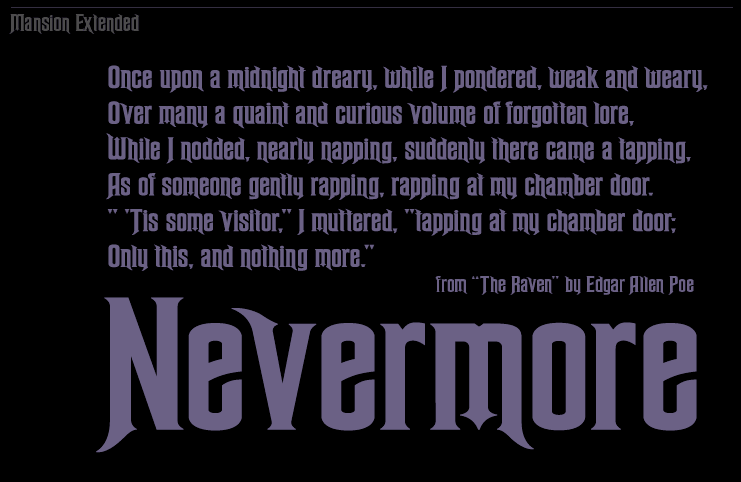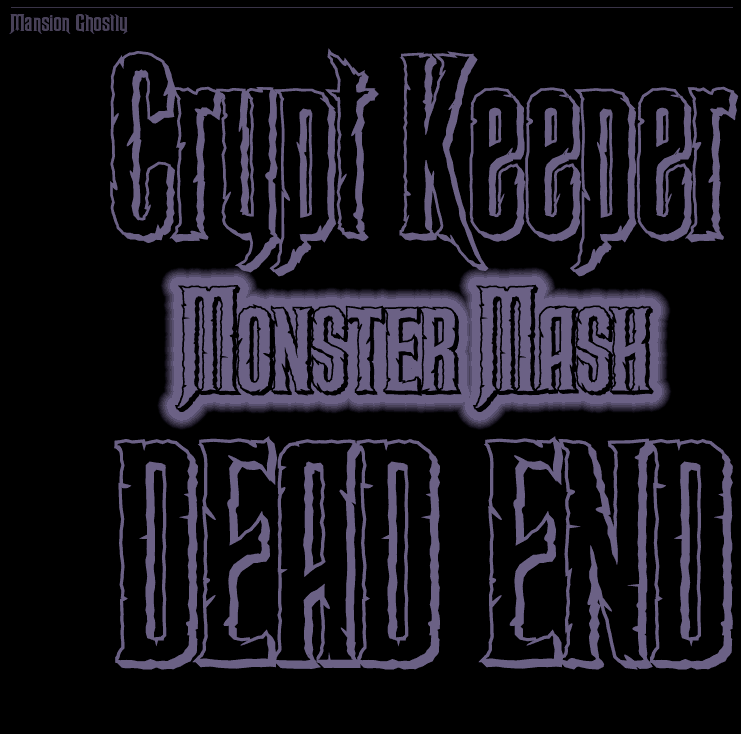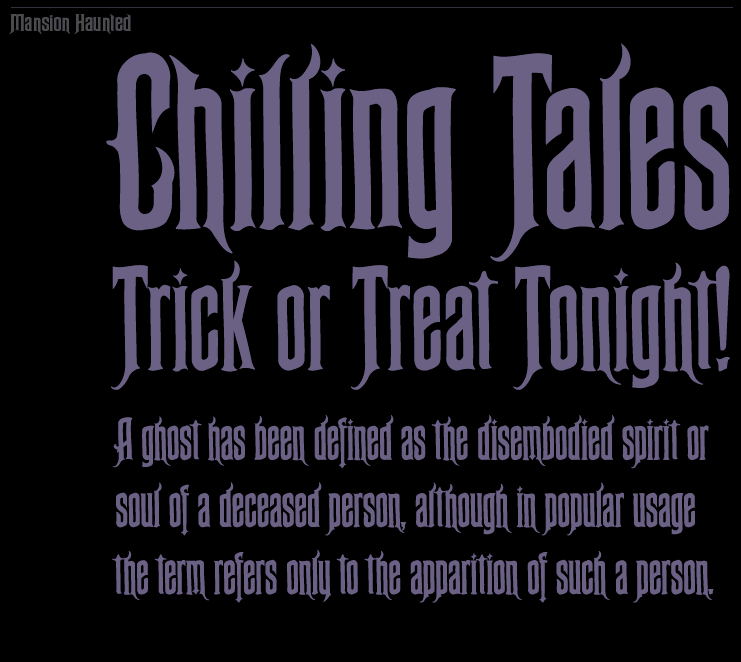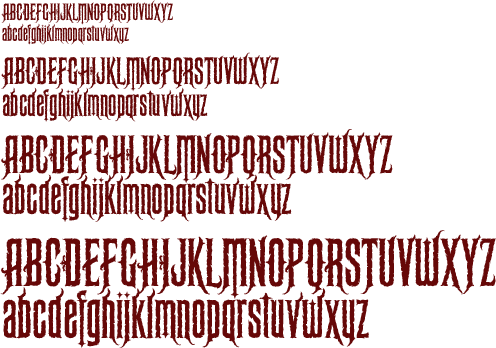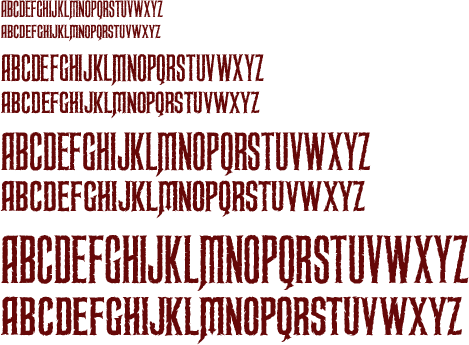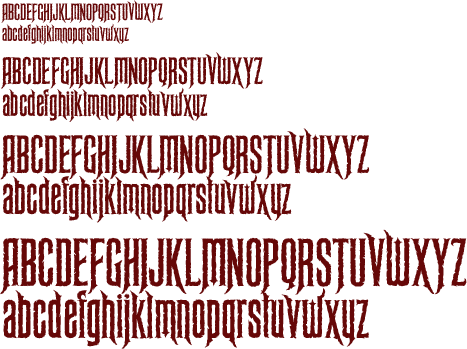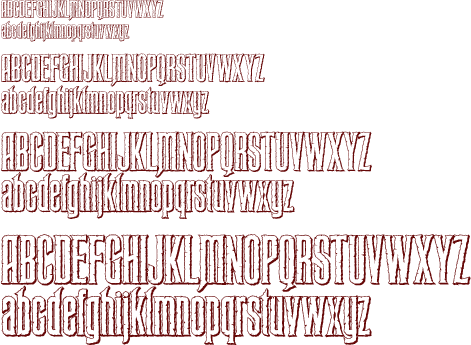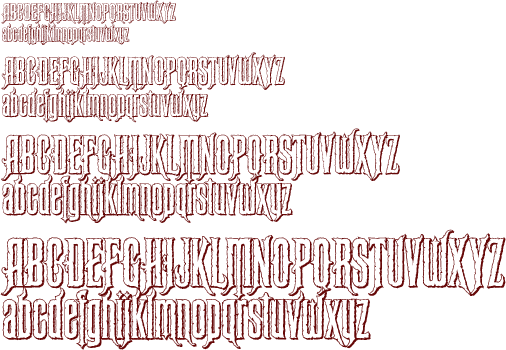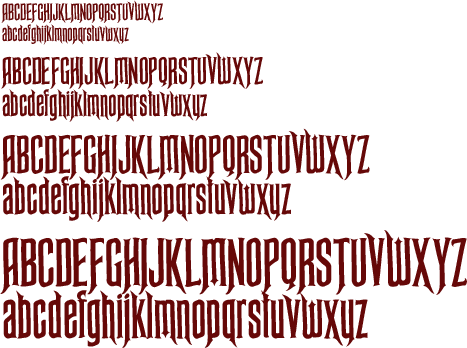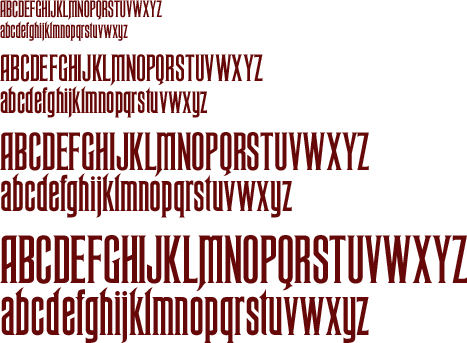
Mansion™ by David Occhino
A woodcut typeface from the 1890s, inspired by lettering by Peter Paul Rubens.
Haunted Mansion font by David Occhino Design
Character Set
Mansion has a set of 240 glyphs.
• Latin A-Z, a-z
• Complete punctuation
• International characters
• Mathematical symbols
Mansion character set
Samples
• Mansion Regular
Mansion Regular
• Mansion Regular Alternate I
Mansion Alternate I
• Mansion Regular Alternate II
Mansion Alternate II
• Mansion Regular Small Caps
Mansion Regular Small Caps
• Mansion Antique
Mansion Antique
• Mansion Antique Alternate I
Mansion Antique Alternate I
• Mansion Antique Alternate II
Mansion Antique Alternate II
• Mansion Antique Small Caps
Mansion Antique Small Caps
• Mansion Haunted
Mansion Haunted
• Mansion Haunted Alternate I
Mansion Haunted Alternate I
• Mansion Haunted Alternate II
Mansion Haunted Alternate II
• Mansion Haunted Small Caps
Mansion Haunted Small Caps
• Mansion Ghostly
Mansion Ghostly
• Mansion Ghostly Alternate I
Mansion Ghostly Alternate I
• Mansion Ghostly Alternate II
Mansion Ghostly Alternate II
• Mansion Ghostly Small Caps
Mansion Ghostly Small Caps
• Mansion Extended
Mansion Extended
• Mansion Stencil
Mansion Stencil
Additional Samples
• The following type specimens use all 18 styles of the Mansion™ typeface family.
Haunted Mansion font
Mansion™ was designed by artist David Occhino.